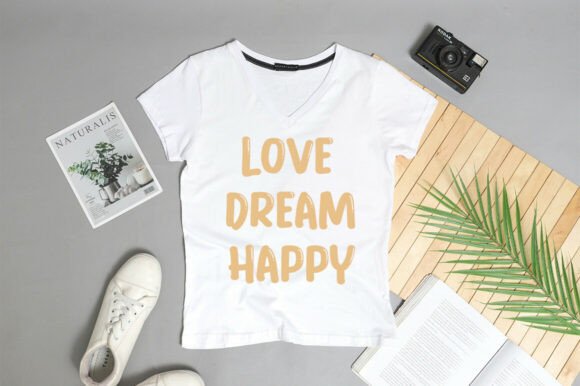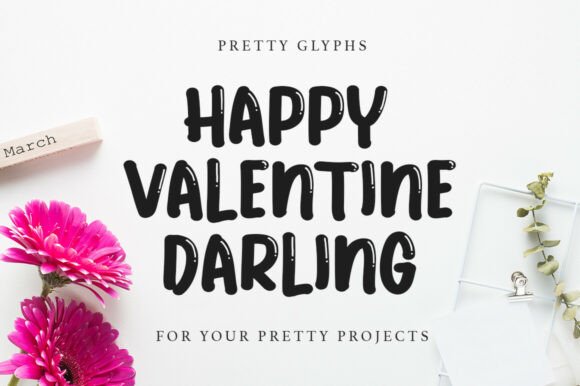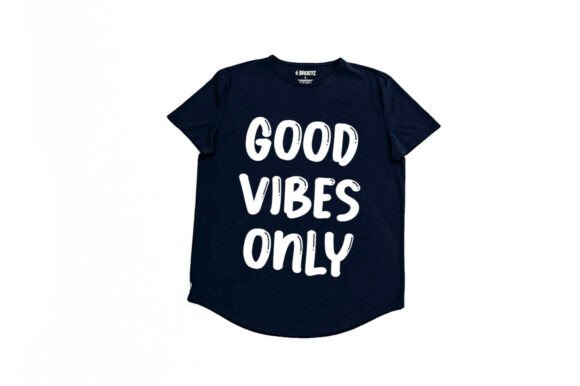
Bloom Shine Font: Elevate Your Designs with a Bold, Bubbly, and High-Impact Display Font
In the world of typography, fonts play a crucial role in conveying the tone and personality of a brand or design. For designers and crafters looking to add a touch of modernity and playfulness to their creations, the Bloom Shine font is an exceptional choice. This bold, bubbly, and high-impact display font is designed to make a statement, characterized by its thick, rounded forms and minimal negative space, which exudes a soft and approachable “balloon-like” quality.
Unique Features of Bloom Shine Font
One of the standout features of the Bloom Shine font is its stylized “shine” highlights—small white accents on the curves—that give the font a glossy, three-dimensional appearance. This distinctive design element adds a level of sophistication and elegance to the font, making it perfect for designs that require a cheerful, energetic, and contemporary visual presence.
The font’s thick, rounded forms and minimal negative space create a sense of cohesion and harmony, making it ideal for use in a variety of design applications. Whether you’re working on toy packaging, bright social media headers, celebratory event branding, or any design that requires a bold and eye-catching font, Bloom Shine is sure to deliver.
Design Applications for Bloom Shine Font
Bloom Shine font is an incredibly versatile typeface that can be used in a wide range of design applications. Here are a few ideas to get you started:
- Toy Packaging: Add a playful and modern touch to your toy packaging with Bloom Shine font. The font’s bold and bubbly design is sure to appeal to kids and parents alike.
- Social Media Headers: Create bright and eye-catching social media headers with Bloom Shine font. The font’s glossy, three-dimensional appearance is sure to make your headers stand out.
- Celebratory Event Branding: Make your celebratory event branding shine with Bloom Shine font. The font’s cheerful and energetic design is perfect for weddings, birthday parties, and other special occasions.
- Digital and Print Designs: Use Bloom Shine font in a variety of digital and print designs, including posters, flyers, brochures, and more. The font’s versatility and legibility make it an excellent choice for any design project.
Why Choose Bloom Shine Font?
There are many reasons why Bloom Shine font stands out from the crowd. Here are a few:
- Unique Design: Bloom Shine font features a unique and distinctive design that is sure to make your designs stand out.
- High-Impact: The font’s bold and bubbly design makes it perfect for high-impact designs that require a strong visual presence.
- Versatility: Bloom Shine font is incredibly versatile and can be used in a wide range of design applications.
- Modern and Playful: The font’s modern and playful design makes it perfect for designs that require a fresh and contemporary look.
In conclusion, Bloom Shine font is an exceptional choice for designers and crafters looking to add a touch of modernity and playfulness to their designs. With its unique features, versatility, and high-impact design, this font is sure to elevate your designs and make them stand out from the crowd. Whether you’re working on toy packaging, social media headers, celebratory event branding, or any other design project, Bloom Shine font is an excellent choice.